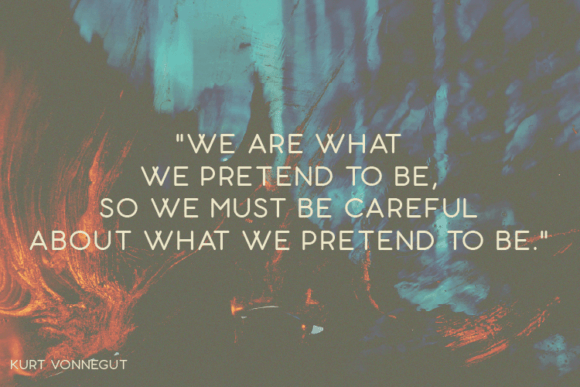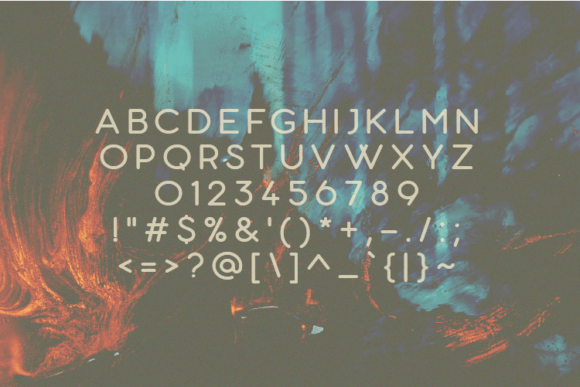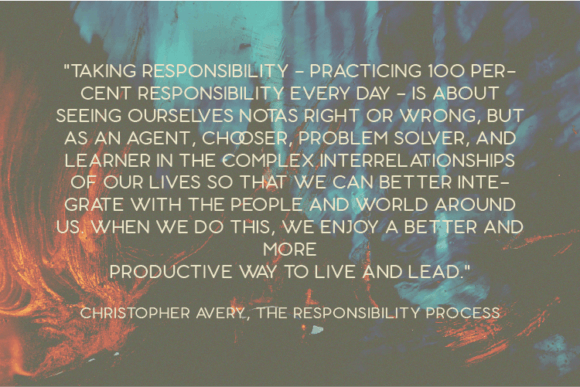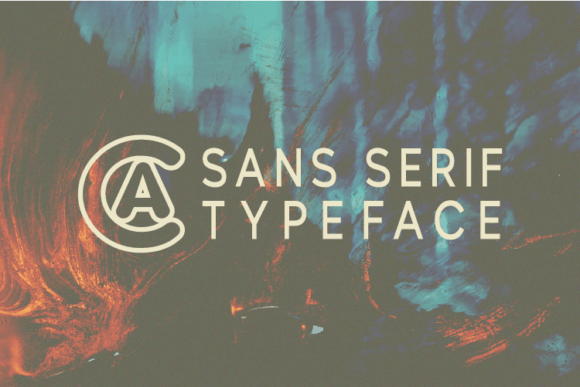
Introduction to Lookgood Font
Have you ever stared at a blank canvas, struggling to find the perfect font to bring your creative project to life? I’m sure many of us have been there. But what if I told you that there’s a typeface that could make your design dreams a reality? Enter the Lookgood Font, a modern, classy sans serif typeface that’s as versatile as it is beautiful.
Designed with precision and care, the Lookgood Font is the ultimate design resource for anyone looking to elevate their creative projects. With its high quality design, it’s perfect for logos, weddings, invitations, quotes, advertisements, print, magazines, and more! Whether you’re a seasoned designer or just starting out, this font is a valuable addition to your toolkit.
Honest Review: Lookgood Font
As a designer, I’m always on the lookout for high-quality design resources to elevate my creative projects. Recently, I had the chance to try out the Lookgood Font, and I’m excited to share my honest review.
- Unique and modern design aesthetic
One of the standout features of the Lookgood Font is its modern and unique design aesthetic. It’s perfect for designers looking to add a touch of sophistication to their creative projects. The high-quality vector files ensure that the font renders crisp and clear, even at larger sizes.
- Limited character set, which may not be suitable for longer texts
- No bold or italic font options available
Overall, I’m impressed with the Lookgood Font, and I would definitely consider using it for future creative projects. While it has some limitations, its unique design aesthetic and high-quality rendering make it a valuable design resource for designers.
To get the most out of Lookgood Font, use it on a transparent background for a clean and modern look. Experiment with different font sizes, colors, and styles to find the perfect combination for your creative project.
Common Use Cases for Lookgood Font
Lookgood Font is perfect for a variety of creative projects, including logos, business cards, and social media graphics. It’s also great for designing presentations, documents, and websites that require a high-quality and modern design resource.